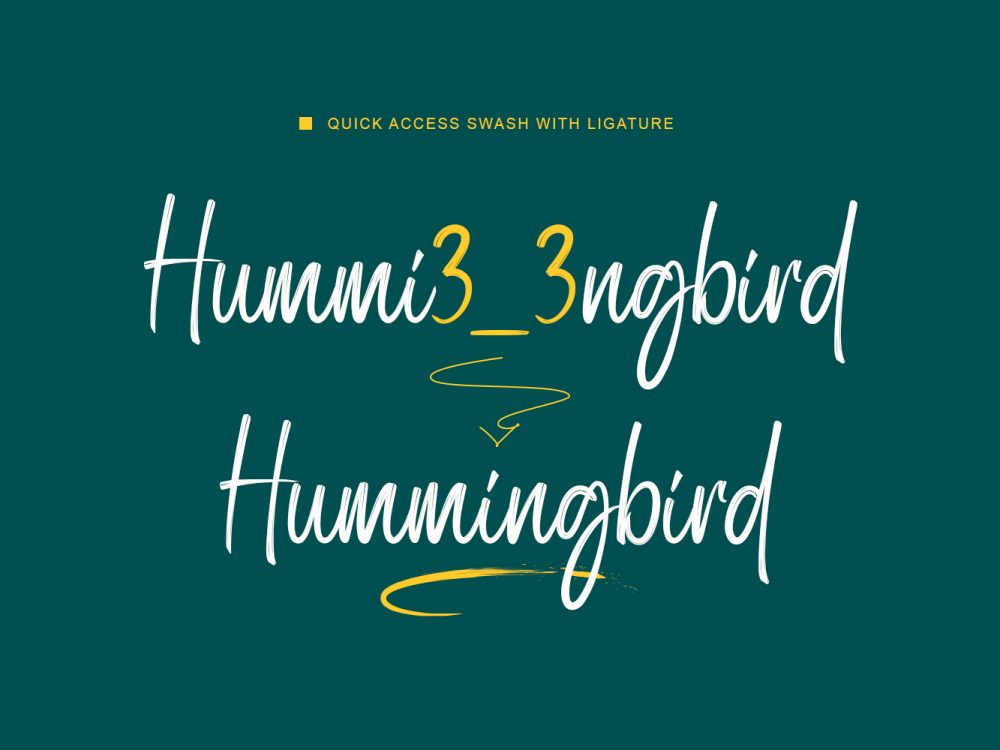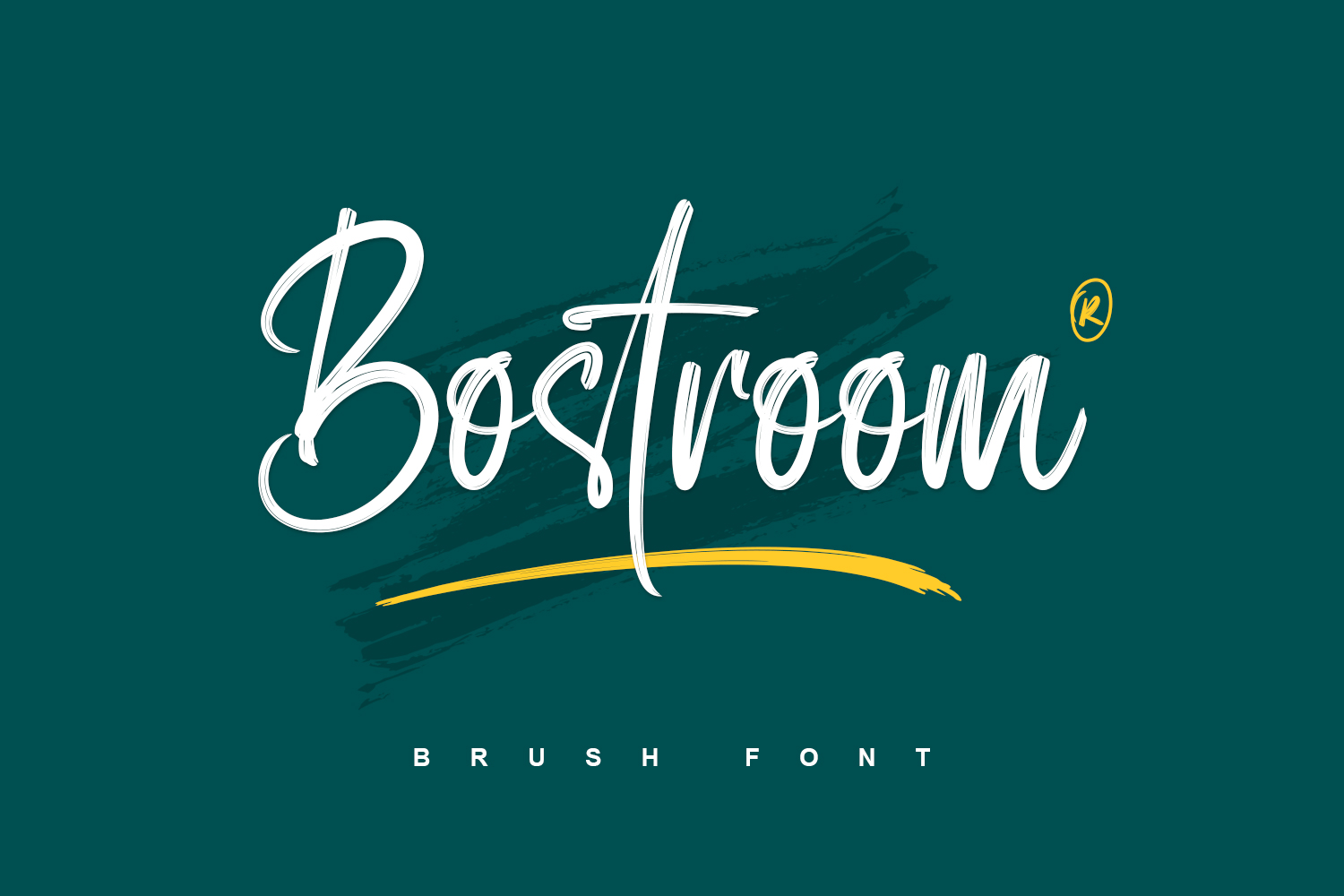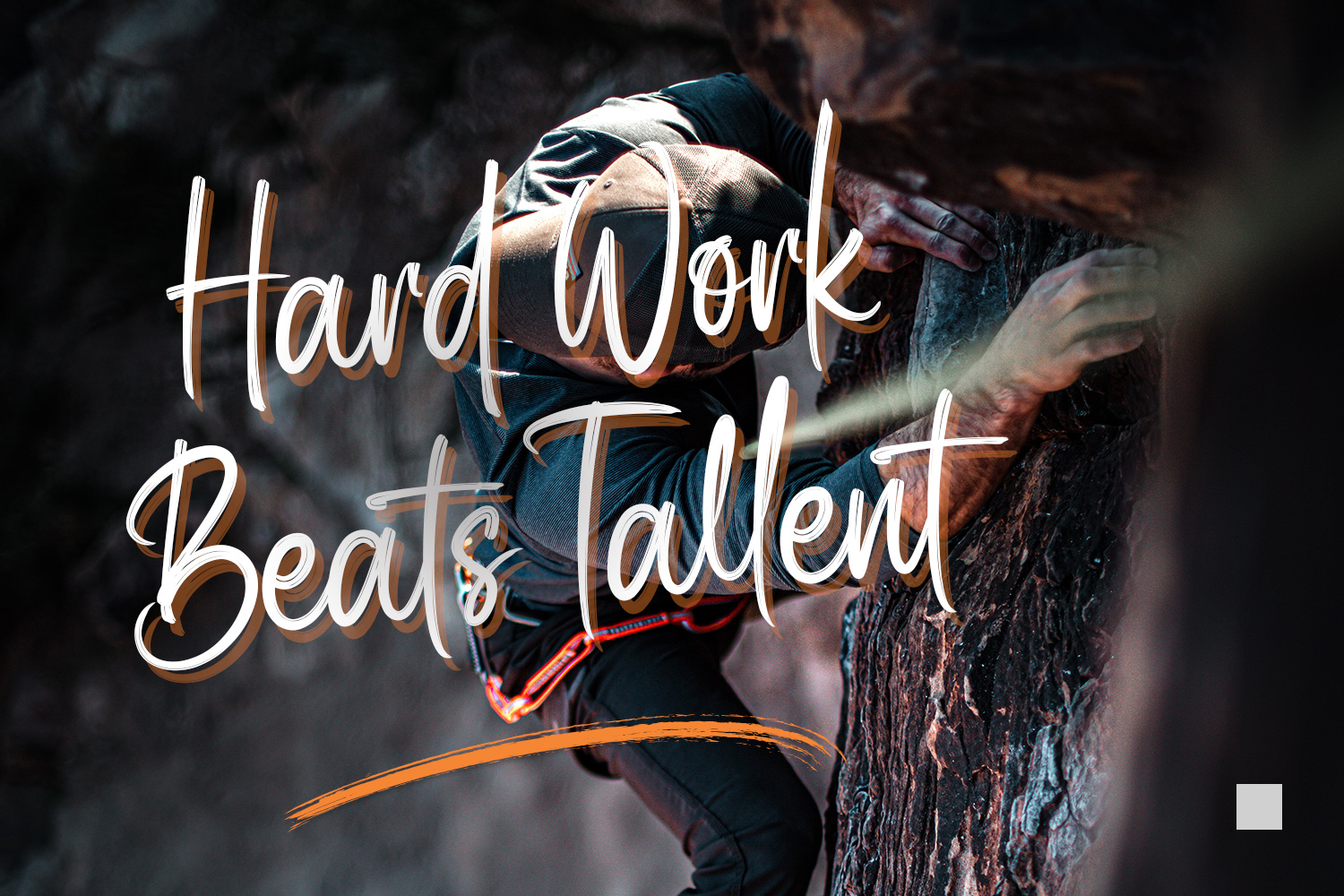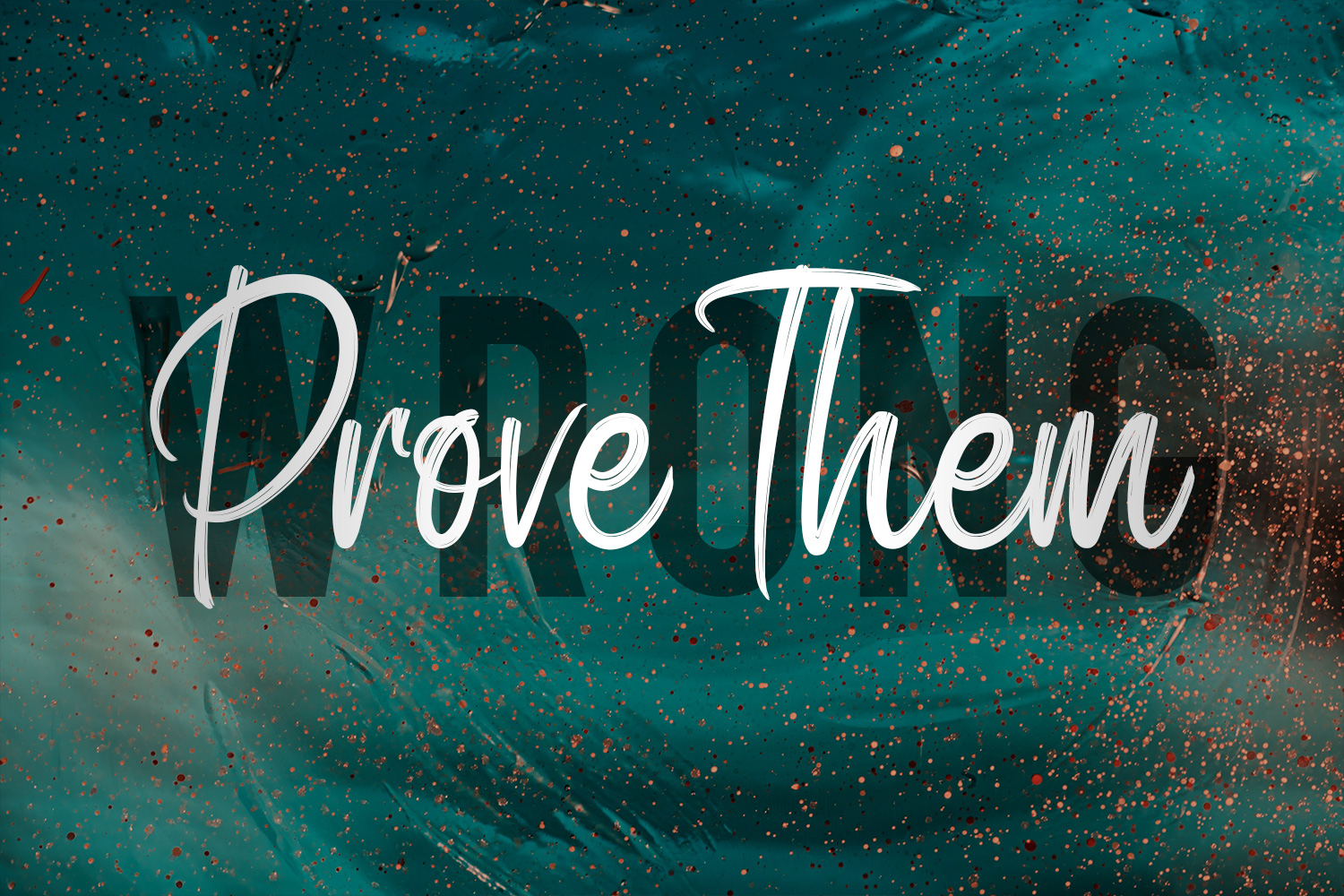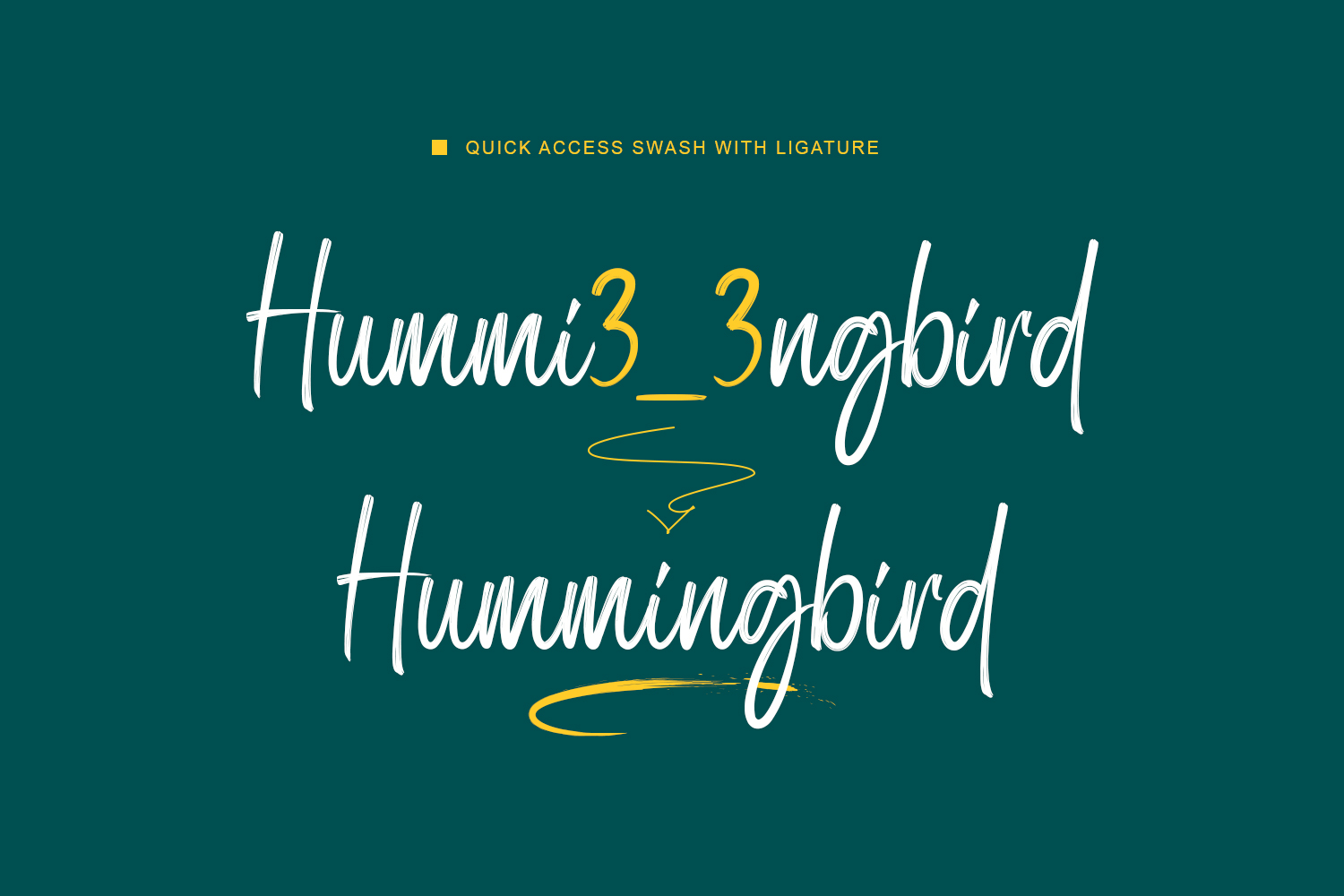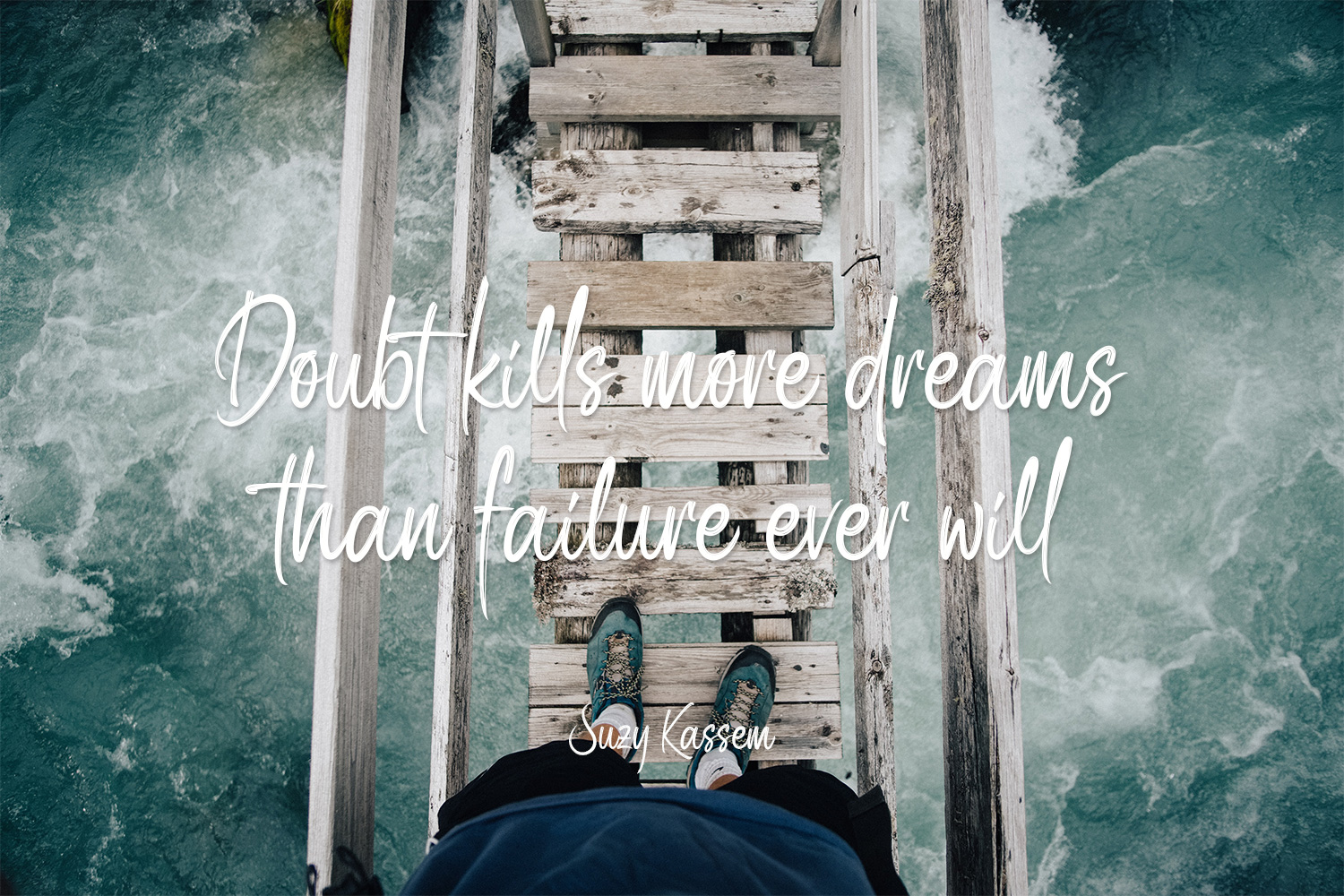
Bostroom Free Font
Bostroom Free Font is an interesting typeface that mimics writing with a brush and has an elegant style. This font is very suitable for creating various design projects that require a handwritten font. These can be posters, cards, invitations, flyers, prints, and much more. If you wish to access more features and use it for commercial work please buy the full version.